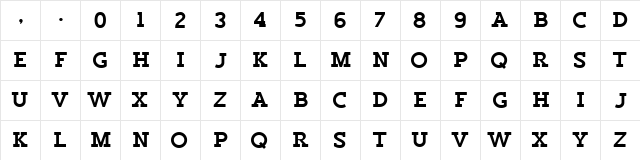
Salveation Slab Regular
| Foundry | Runsell Studio |
| Designer | Edi Gunawan |
Design Context for Salveation Slab Typeface
Salveation Slab combines the readability of serif typography with the visual weight of a slab construction, resulting in a typeface that feels both authoritative and approachable.
Works well in editorial design, news publishing, impactful branding, and poster typography.
Pro Tip: Try Salveation Slab set tight in headlines for a classic editorial feel. Its slab serifs create strong horizontal rhythm that anchors a page layout.